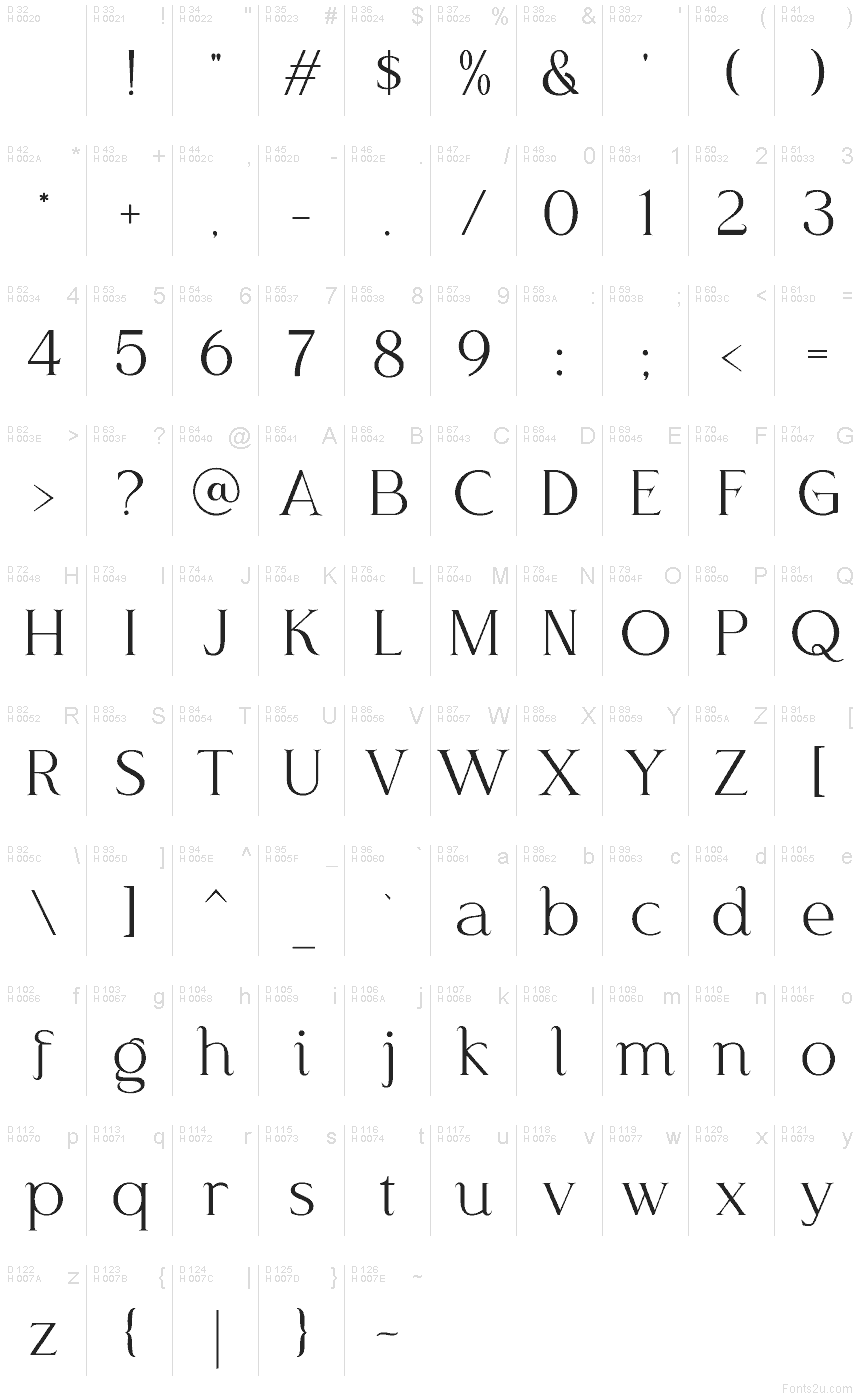
Korcy Regular
Korcy font by Wildan Type is a refined serif font combining classic elegance with a modern touch. Its beautifully crafted design exudes a timeless aesthetic, making it both versatile and sophisticated.